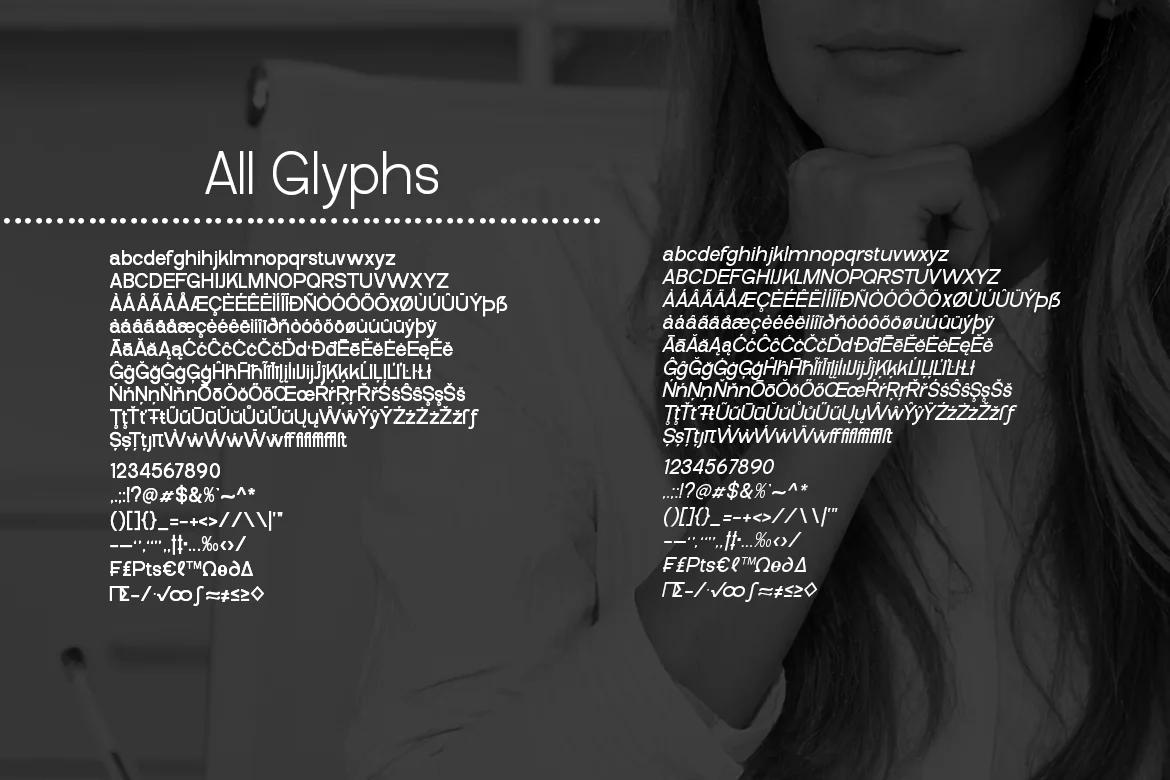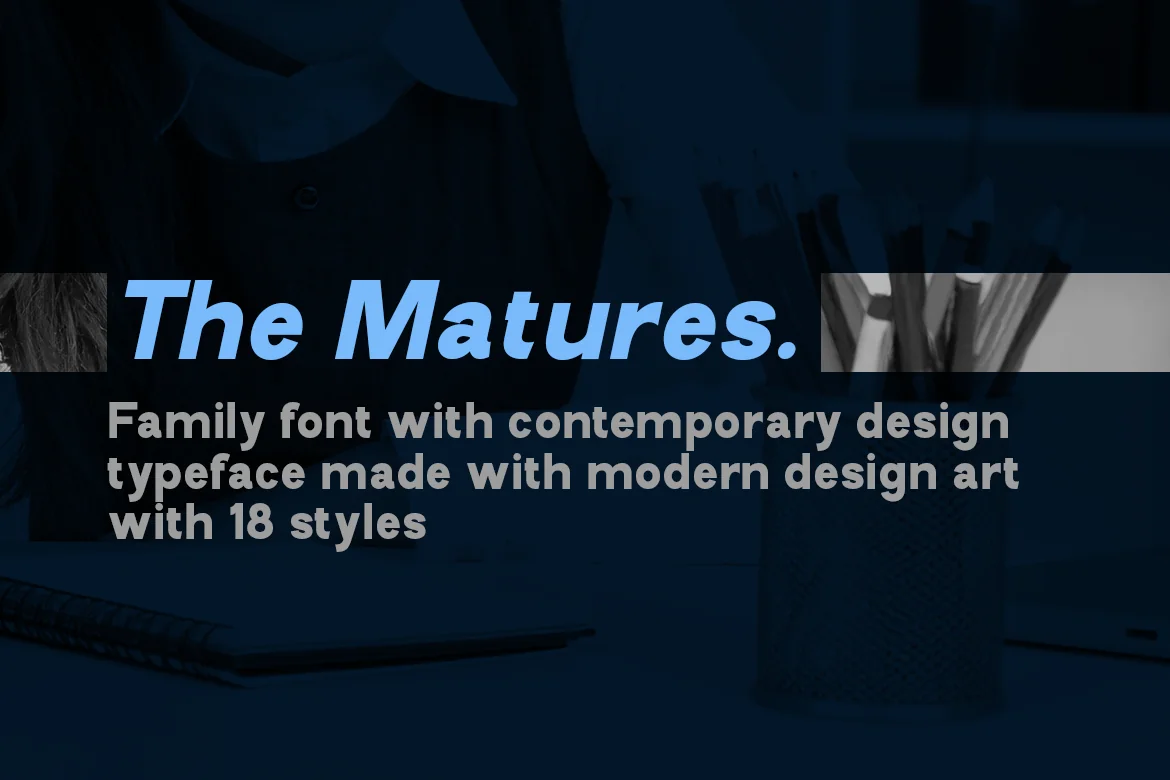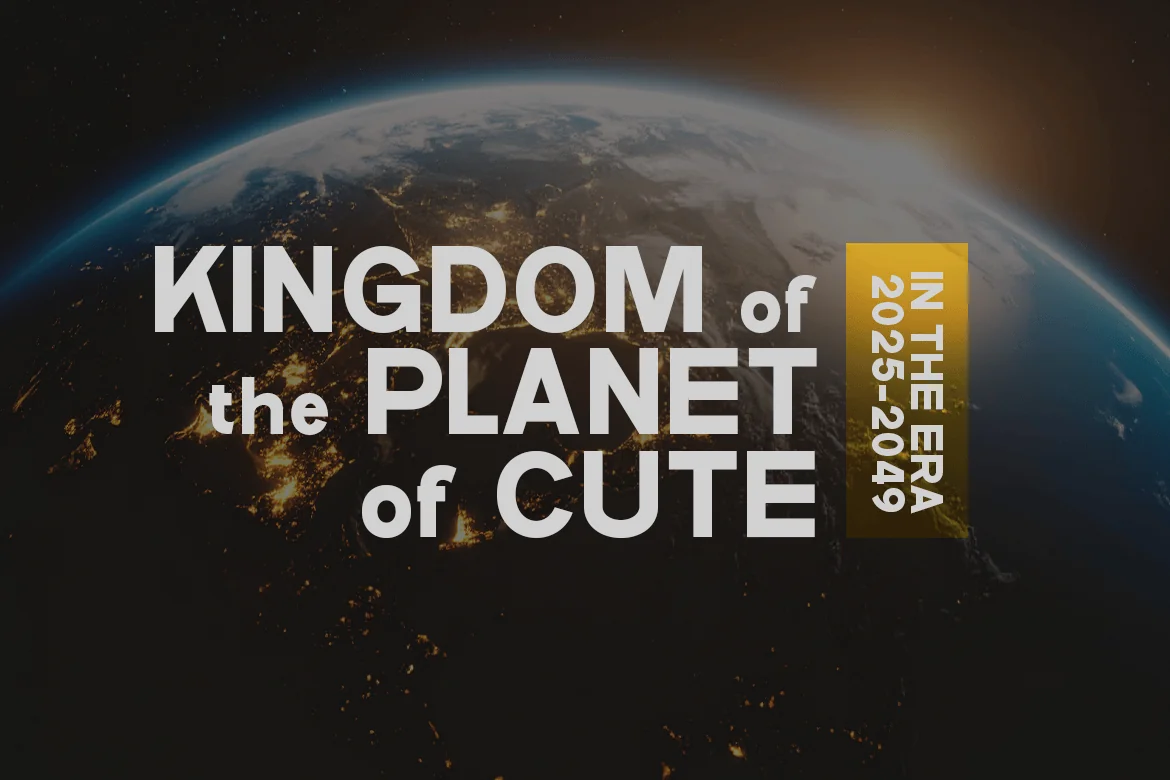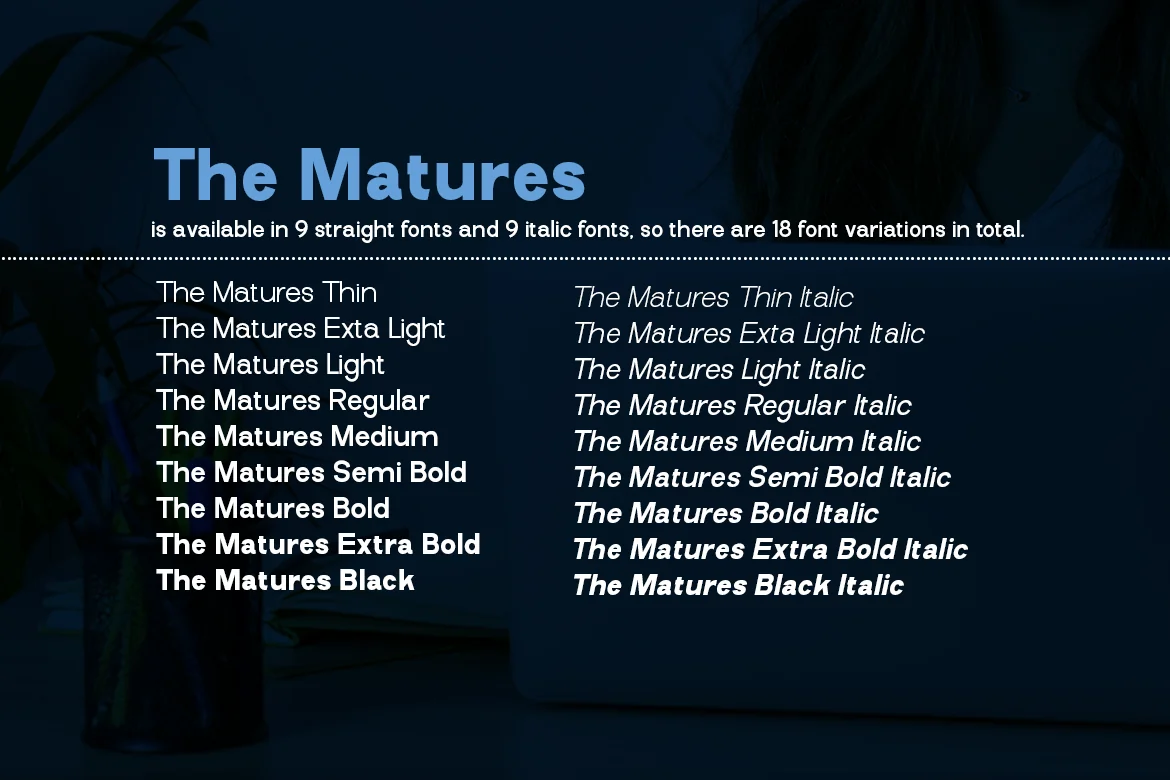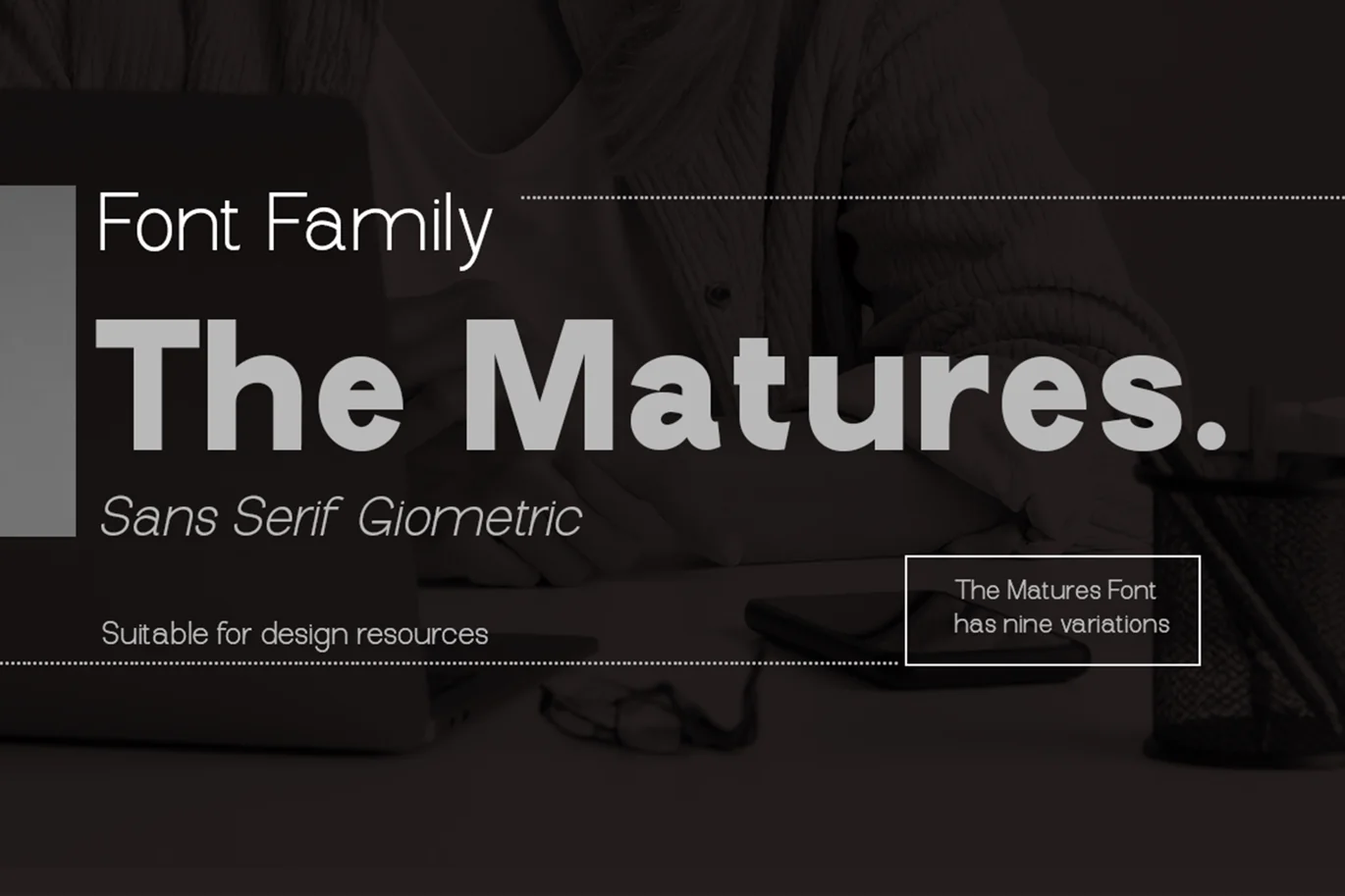
The Matures // Family Font Sans Serif
The Matures is a Formal Font and also suitable for display. This font is very Elegant. Made with various sizes of its weight.
The Matures is a variation of the font with a normal style, comes in 9 upright fonts and 6 italic fonts, making a total of 18 font families. This font looks amazing in logos, magazines, and movies. This font will be perfect for branding, headlines, captions, paragraphs, and posters. Various weights allow you to experiment with various applications. This font is made to make an impression without sacrificing its beauty and readability.